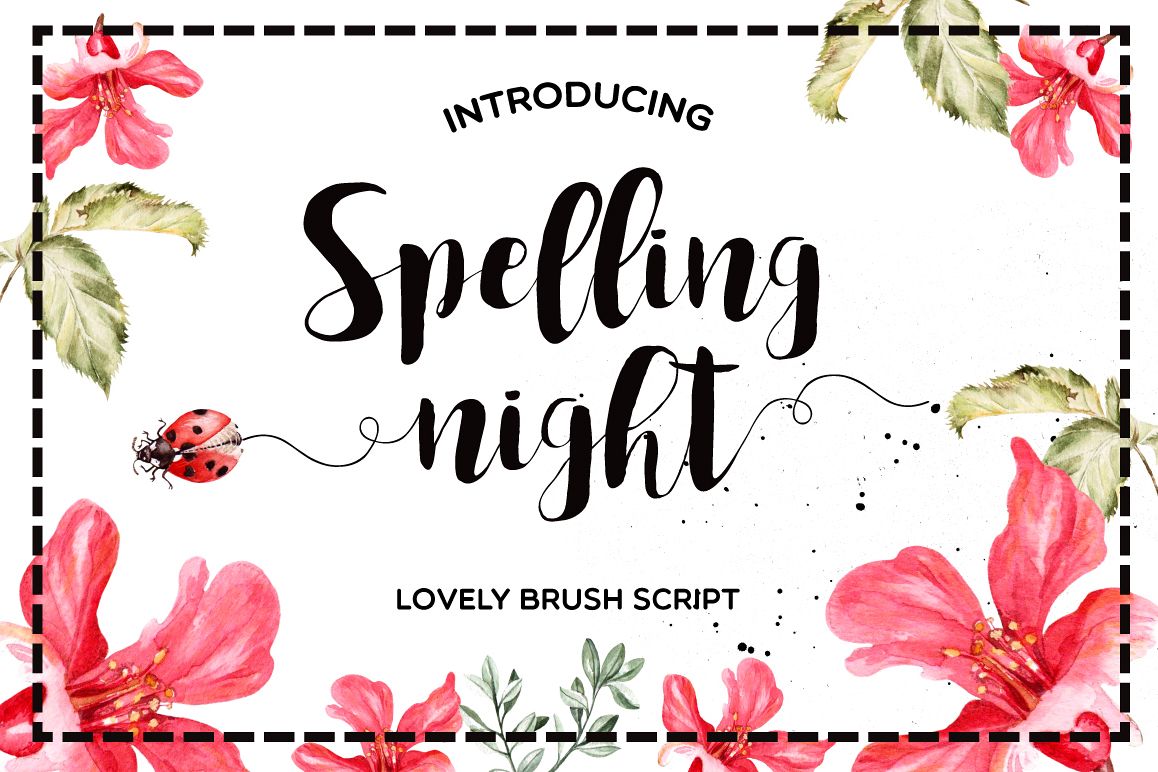
Spelling Night
Spelling Night!
It's brush modern and romantic font with ligatures, alternative ending and alternative initial.
This fonts are perfect for wedding invitation or postcard for your friend. Also with their help, you can create a logo or beautiful poster. Or just use for your small business.